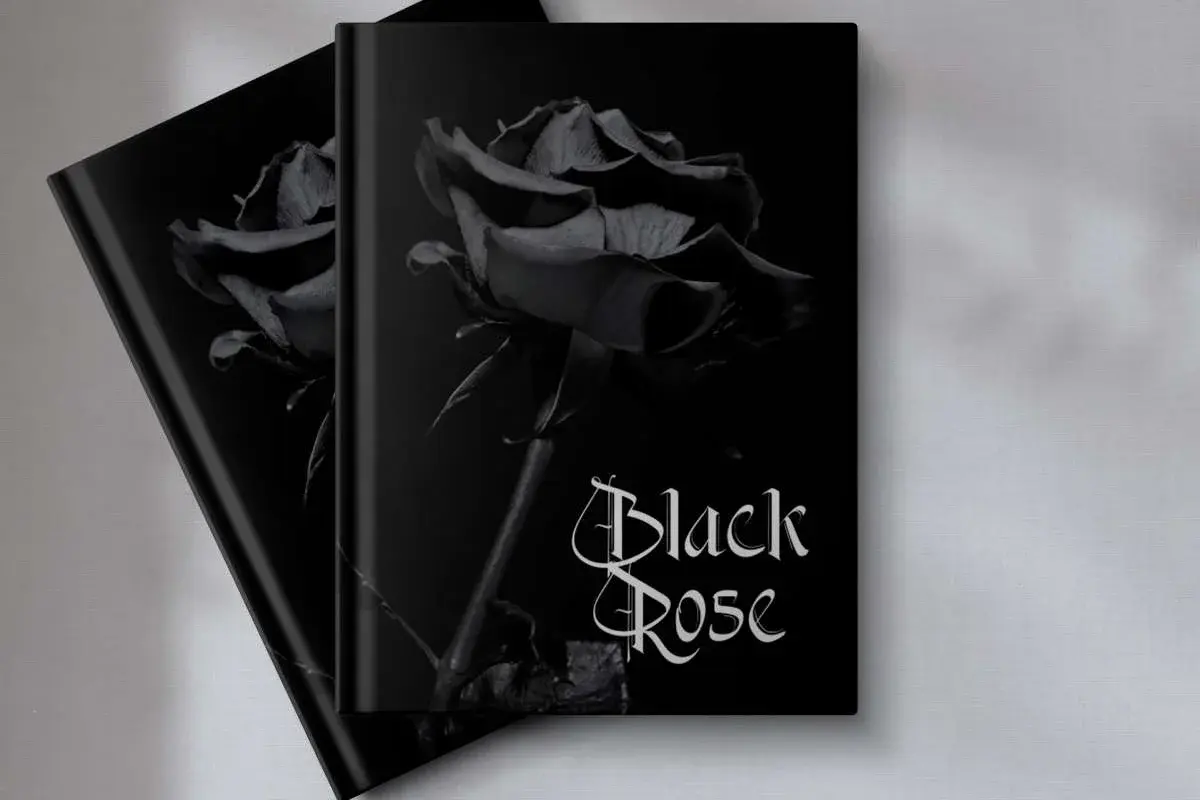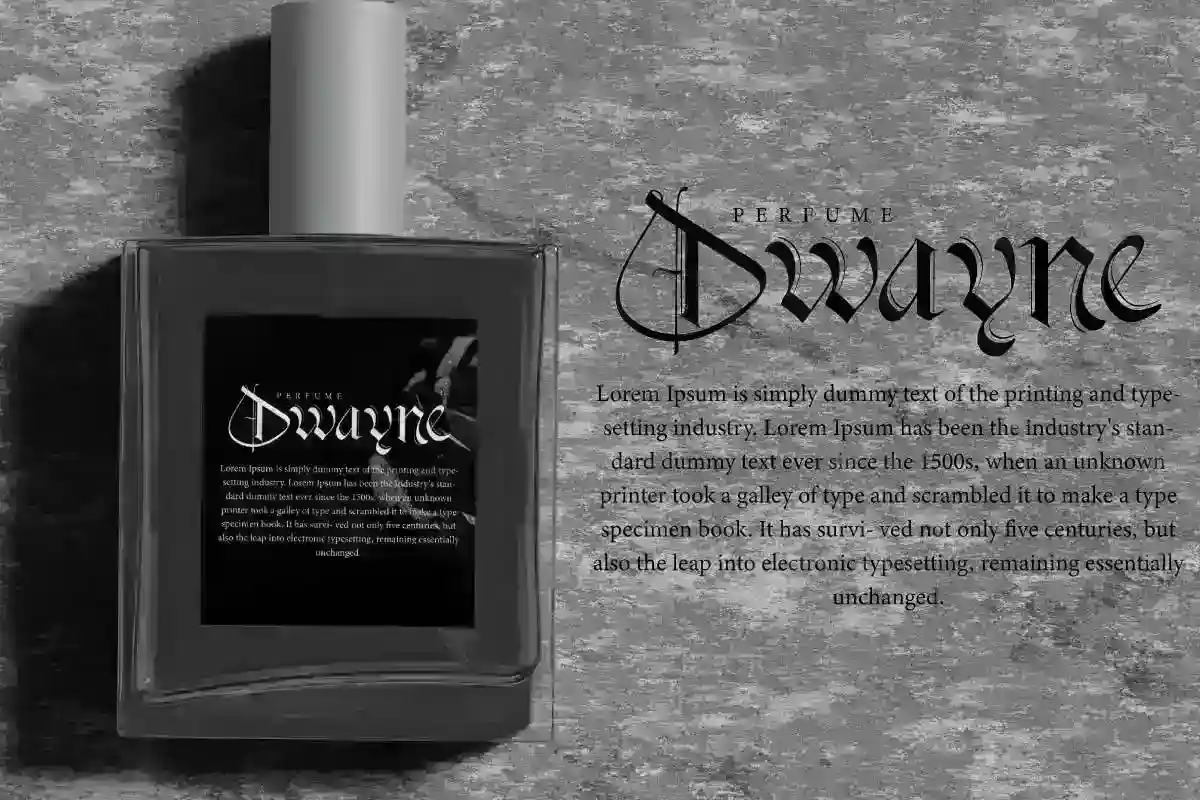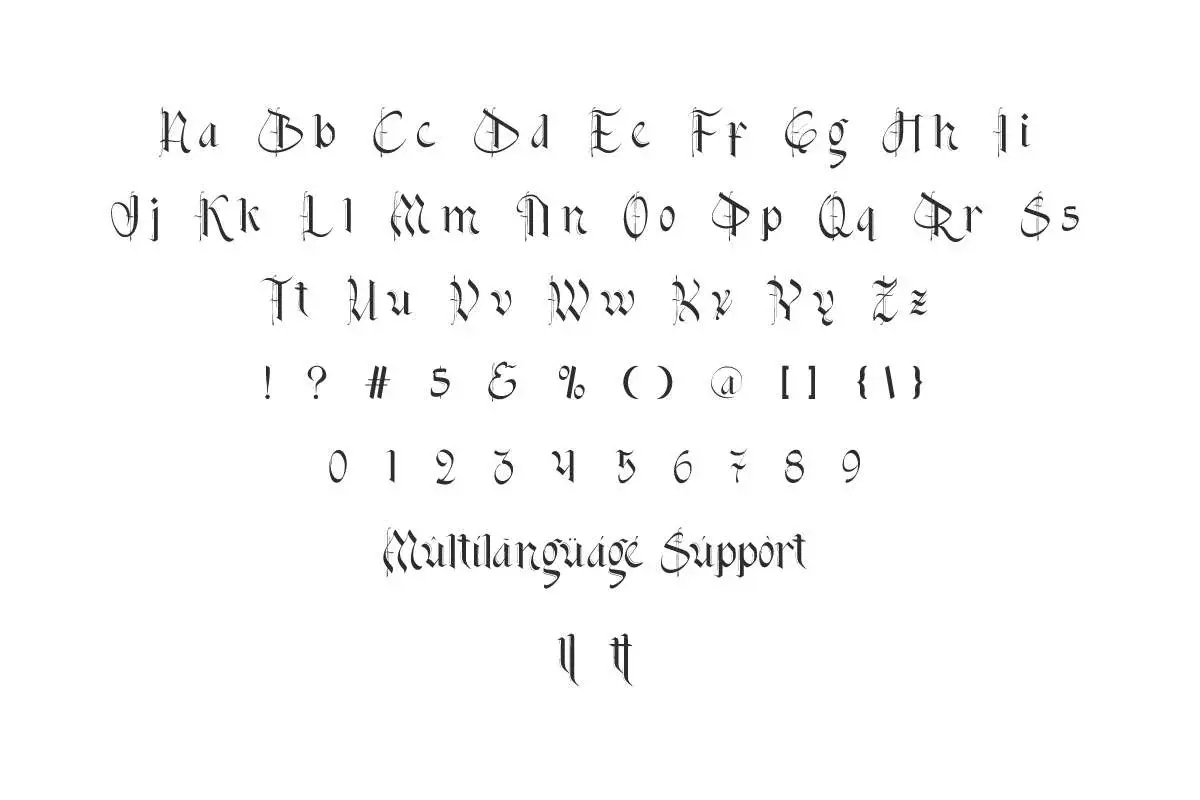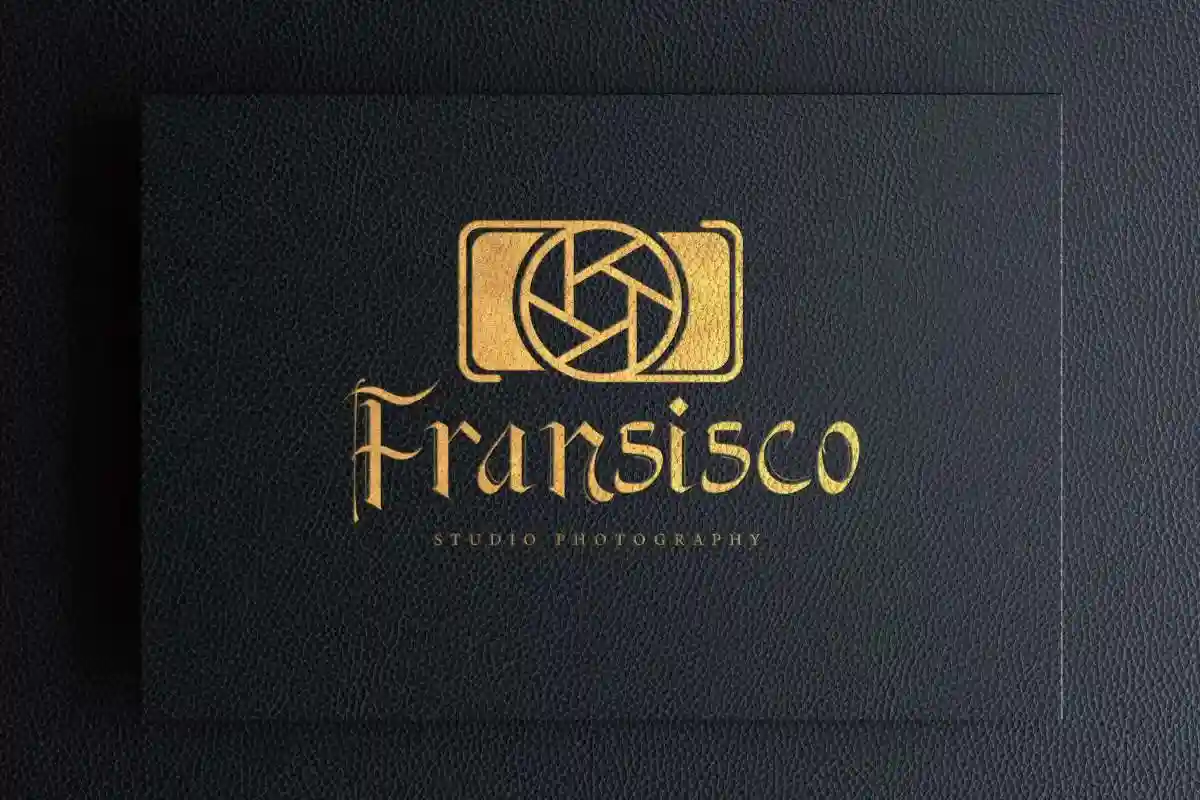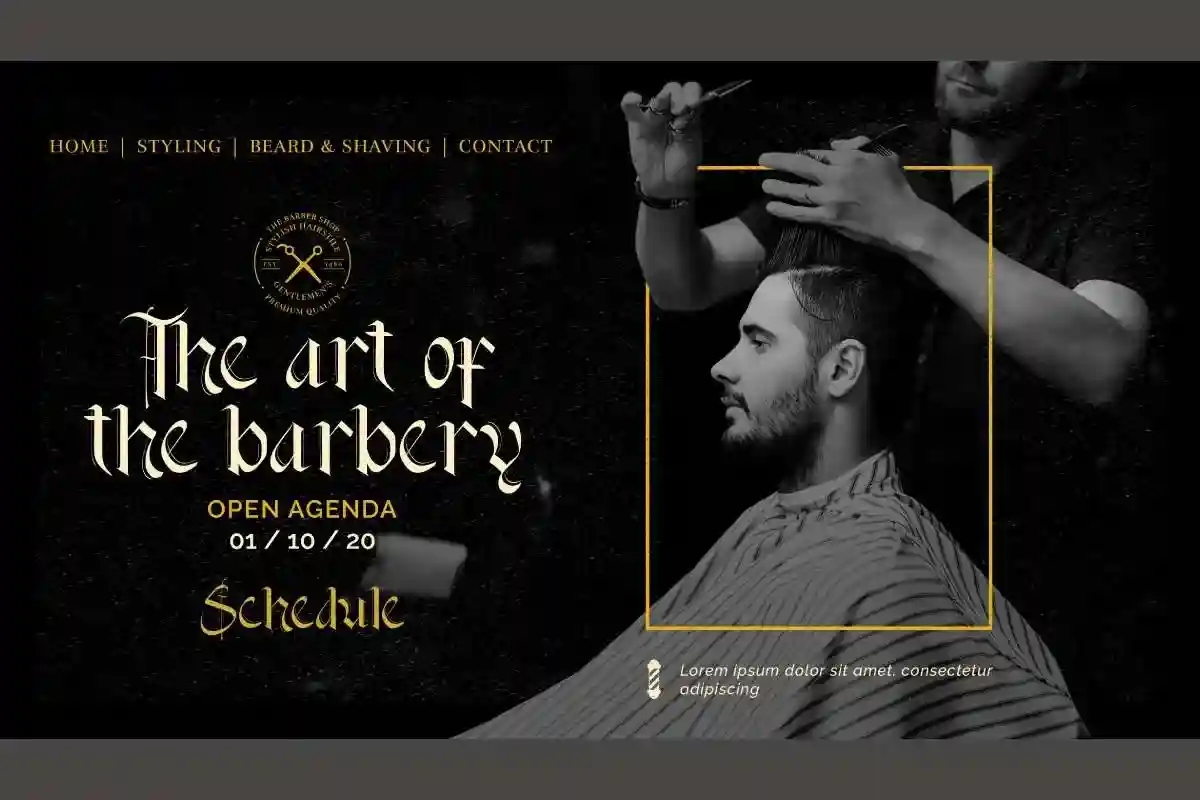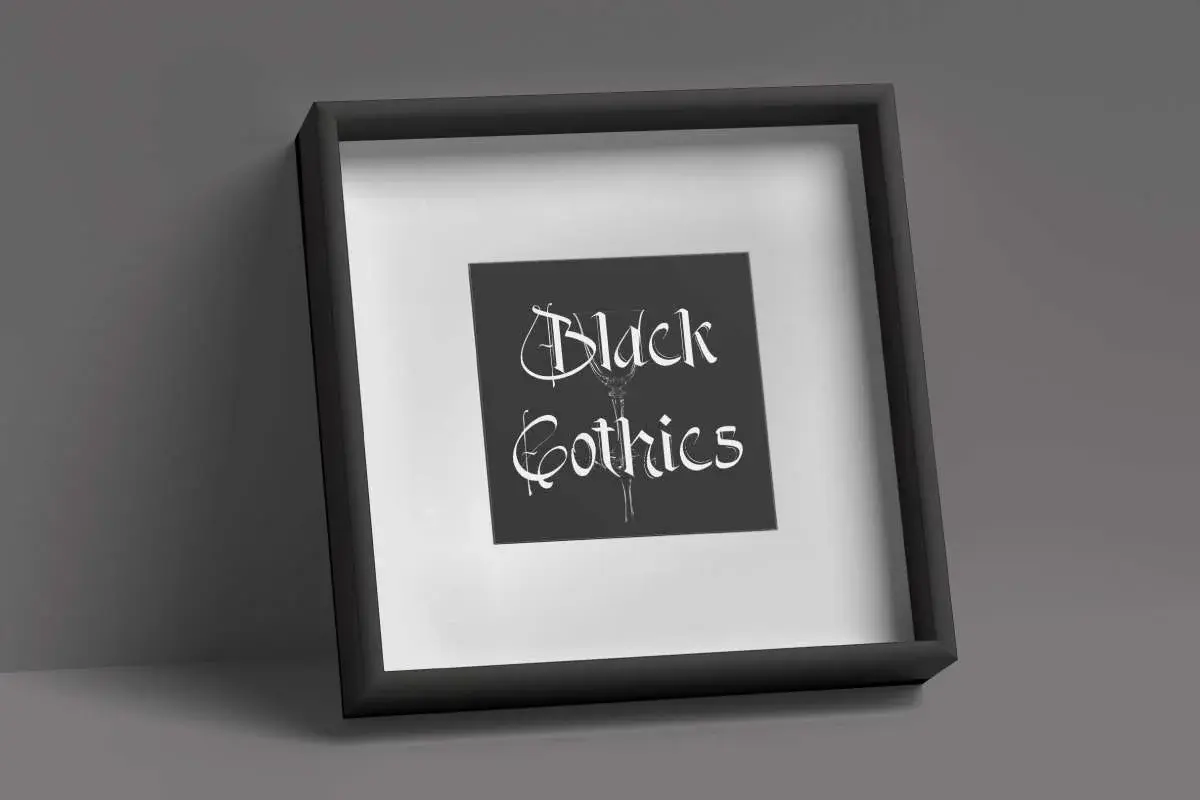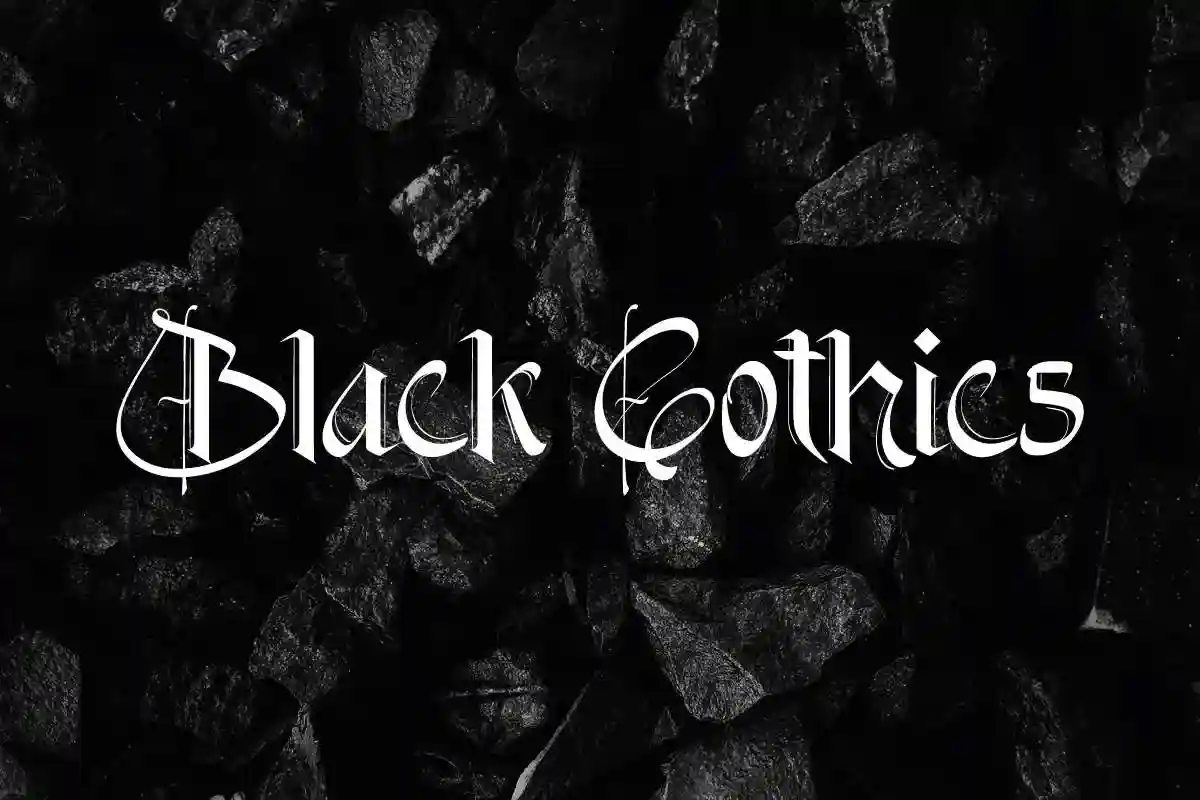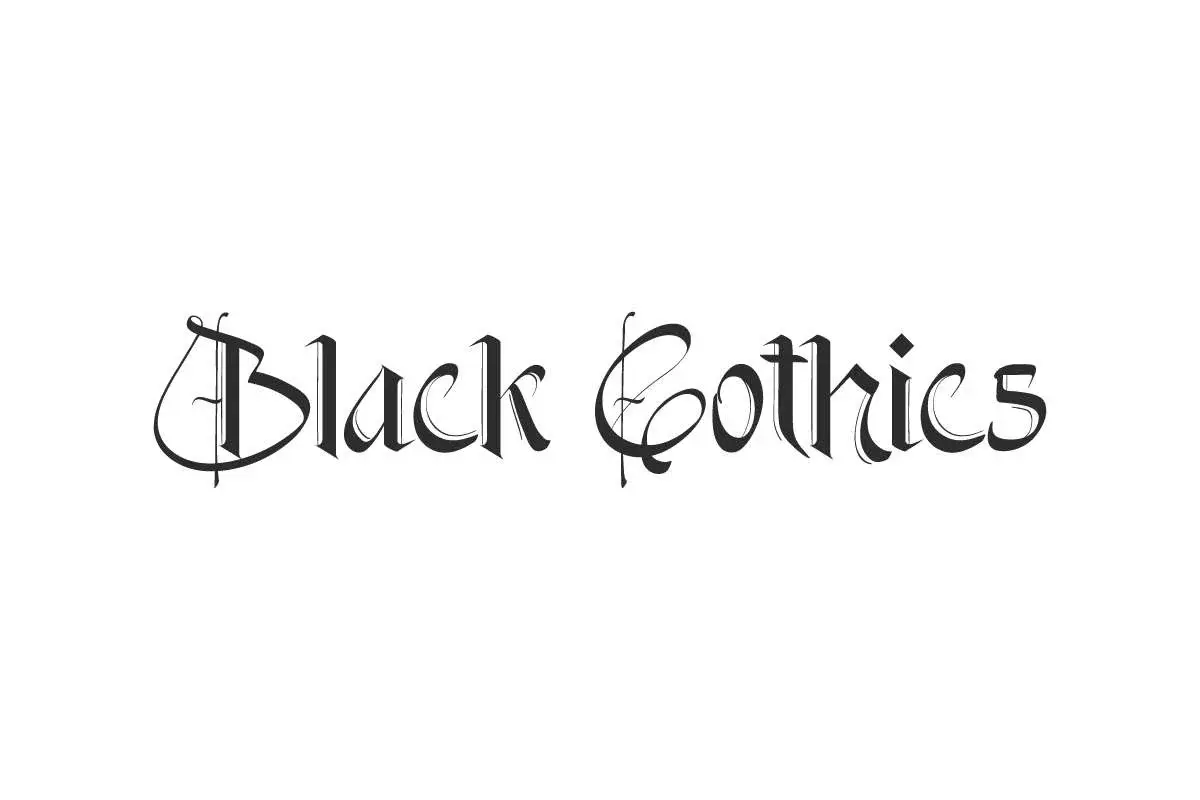
Black Gothics Font is a cool blackletter display font with a vintage gothic theme. It will be perfect for barber, billboard, fashion, cover, photography, and many more.
Black Gothics Font is a blackletter modern display font with gothic style. It will be able to elevate your designs to high level, such as billboard, brand logo, brochure, business card, cover, embossed design, header, invitation, label, magazine catalog, mockup design, poster, product packaging, quote, screen print, signage, stationery, sticker, title, website, etc.
Black Gothics Font includes full set of Uppercase and Lowercase Basic Characters, Number, Punctuation, and Symbol. It’s trendy with an artistic touch so it will enhance your business, such as barber, craft, fashion designer, music, perfume brand, photography, restaurant, and many more.